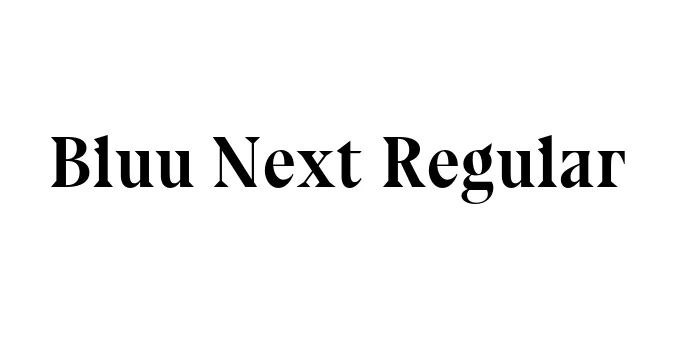
Bluu Next Regular
Designed by Jean-Baptiste Morizot
Bluu Next is a sharp and edgy serif typeface designed by Jean-Baptiste Morizot for the Velvetyne Type Foundry. It was originally conceived as a bold replacement for classic serifs like Times New Roman, aiming to bring a more contemporary, aggressive, and "brutalist" personality to the serif genre. Its high contrast, pointed terminals, and heavy weight make it stand out exceptionally well in display settings.
The Regular weight of Bluu Next (which is inherently bold) is particularly distinctive for its triangular serifs and sharp angles. While it maintains a level of readability, its unique letterforms are inspired by heavy metal aesthetics and sharp engraving styles. Released under the SIL Open Font License, it has become a staple in the open-source design community for projects that require a strong, modern visual impact.
Bluu Next Regular Best Uses
Perfect for striking headlines and sophisticated magazine layouts.
Ideal for logos that require a sharp, edgy, and modern serif identity.
Works excellently for large-scale typography where its sharp details can be appreciated.
Great for hero sections and high-impact headers.